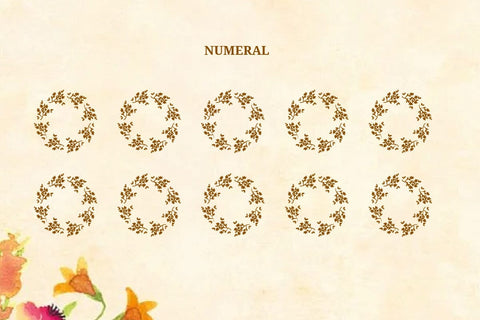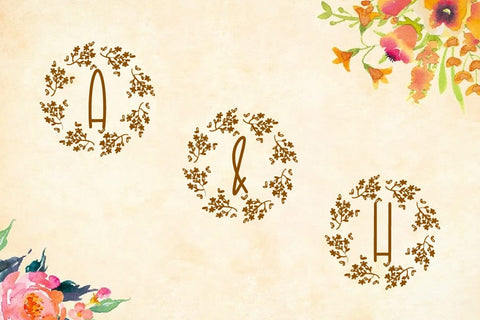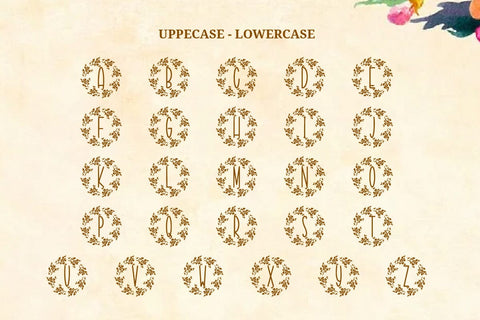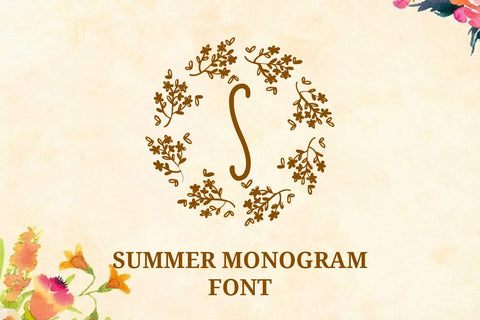
Summer Monogram - Decorative Font
Introducing our font product "Summer Monogram" a decorative monogram font that can enhance your creative projects such as logos, initials, stickers, cricuts, weddings, key chains, and other creative projects